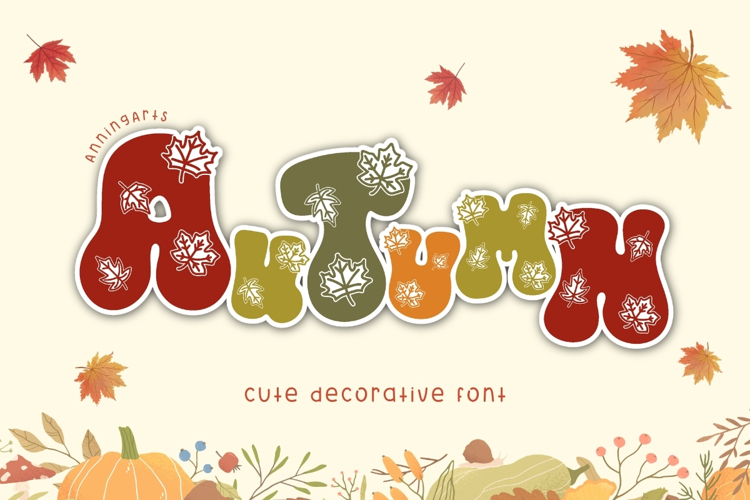
Bubble Joy - Display Font
Celebrate the cozy season with this cute Autumn Bubble Font featuring beautiful maple leaf details. Perfect for Thanksgiving crafts, fall shirts, mugs, signs, invitations, stickers, classroom decorations, Cricut projects, sublimation, Canva designs, social media, branding, and seasonal DIY creations.